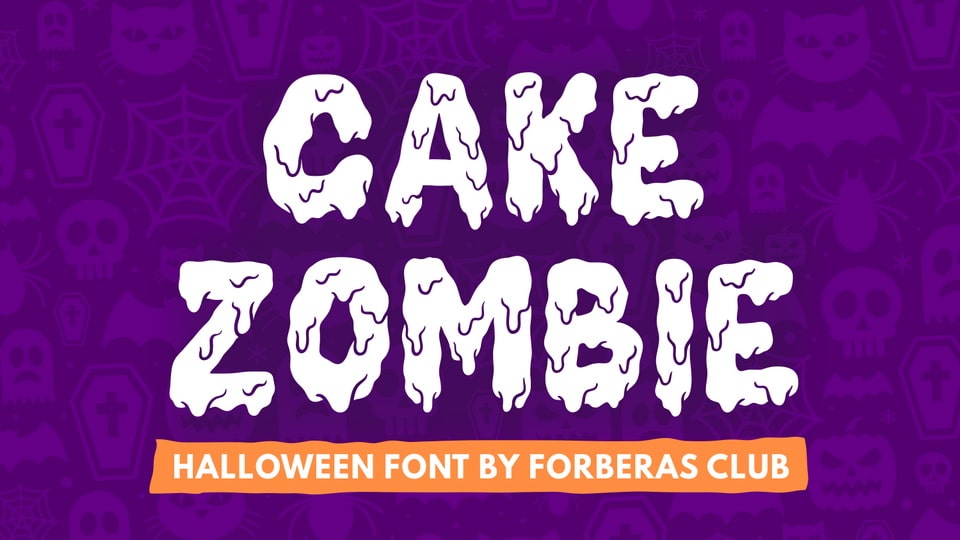
Feb 4, 2025DisplayCake Zombie Font Cake Zombie is a fun and spooky display font. With its scary vibe, this font is suitable for all your Halloween or horror-themed projects. Font DetailsDesigned by: Forberas Type FoundryWebsiteLicense: Free for personal use Download Cake Zombie FontFile size: 19.74 KBCreated: February 16, 2025Updated: February 16, 2025 Download Explore similar fonts Zombie Brains Font Zombie House Font Monsterkins Font Hallow Zombies Font Zombieland Font Zombie Holocaust Font # Cartoon# Creepy# Funny# Halloween# Spooky More fonts by Forberas Type FoundryAtoney FontCashman FontMelody Cinta FontHoly Saghne FontQiyu FontHarmonster FontLazie Victory FontBlasticia Font